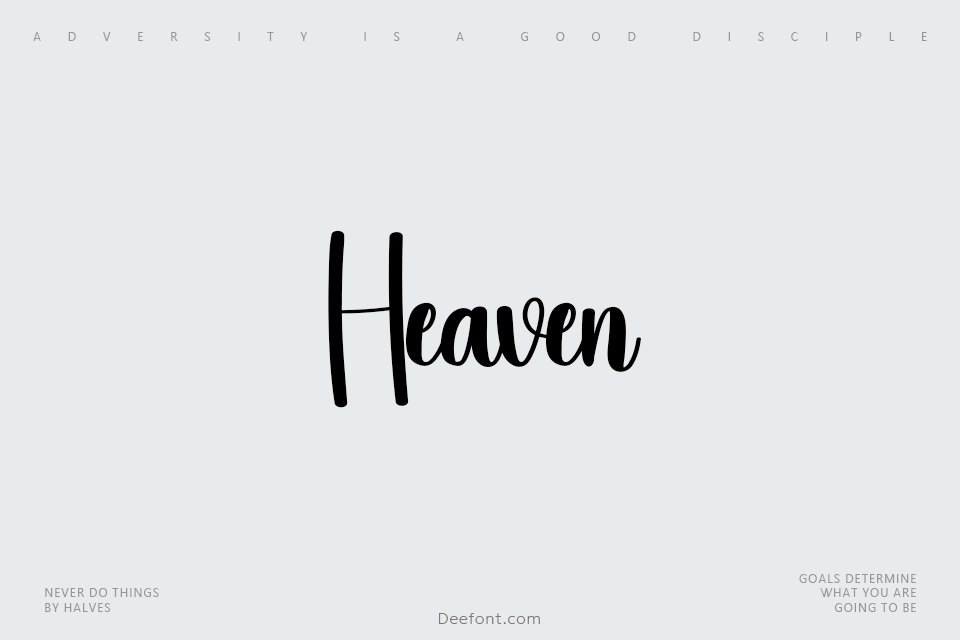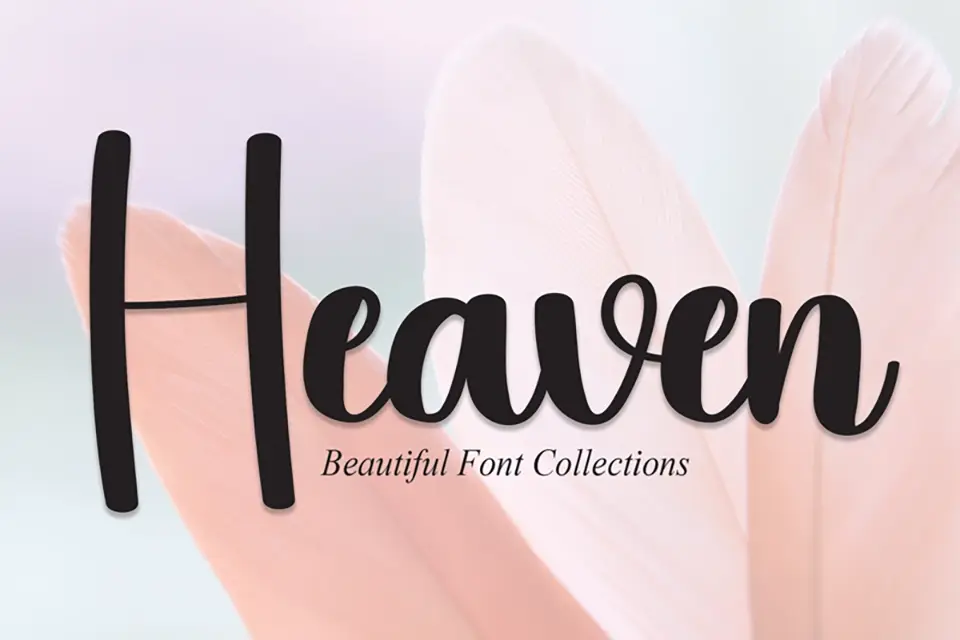
Heaven Font
Heaven is a stylish script font designed for modern creative projects. Its elegant and flowing letterforms are ideal for branding, invitations, social media posts, packaging, and visual displays, offering a fresh and sophisticated handwriting feel. Perfect for those seeking an extraordinary, tastefully crafted typeface to highlight their work, Heaven stands out with its versatile and contemporary appeal.